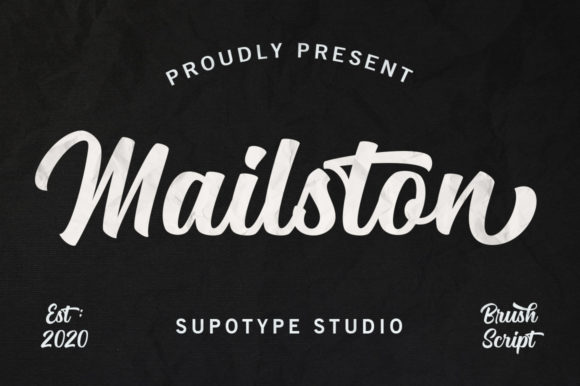
Dive into the world of vintage charm with Mailston Script, a captivating display font that oozes personality! This script font, lovingly crafted by supotype, takes you on a journey back in time with its nostalgic aura. Its elegant curves and playful characters dance across your designs, adding a touch of whimsy and charm. Whether you're crafting heartfelt wedding invitations, creating eye-catching social media posts, or designing enchanting book covers, Mailston Script is your perfect companion.
Unleash your creativity and let Mailston Script weave its magic into your designs. Its versatility knows no bounds, allowing you to effortlessly transform your projects into masterpieces. From vintage-inspired logos that evoke a sense of nostalgia to whimsical posters that capture the imagination, Mailston Script is the key to unlocking a world of visual delight.
Step into the realm of vintage elegance with Mailston Script, where every letter is a work of art. Its charming curves and playful flourishes add a touch of sophistication and grace to your designs, making them impossible to ignore. Whether you're creating enchanting book covers that transport readers to another era or designing captivating posters that demand attention, Mailston Script is your secret weapon.
Take your designs to new heights with Mailston Script, the ultimate font for creating an unforgettable impression. Its vintage charm and playful personality will captivate your audience, leaving them enchanted by your creations. Discover a world of endless possibilities with Mailston Script, where your designs will shine brighter than ever before.